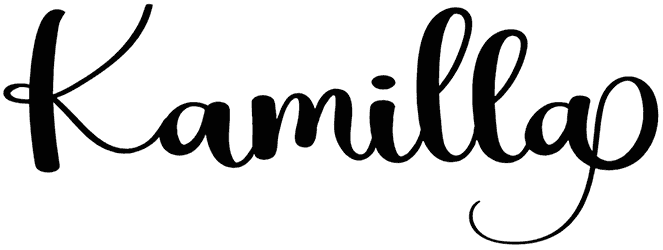
Kamilla Font
Display a romantic and adorable face with a classic font such as Kamilla. This postcard font has full support for characters with natural outward and beautiful curves. As an all-purpose font, Kamilla can lend a professional vibe to your modern projects, for instance, business cards, planners, invitations, and the like.
Kamilla is a beautiful and refined script font. It has a classy, elegant, and modern look that can be used for logos, branding, invitations, stationery, wedding designs, social media posts, and much more!